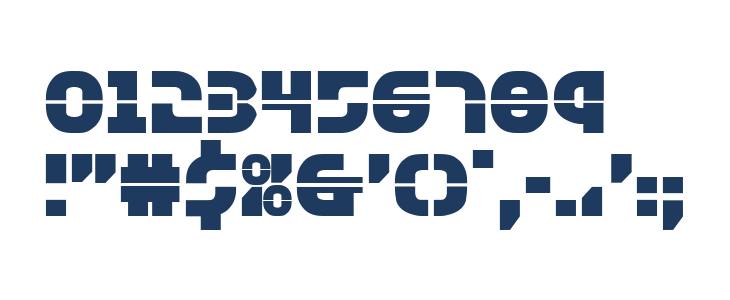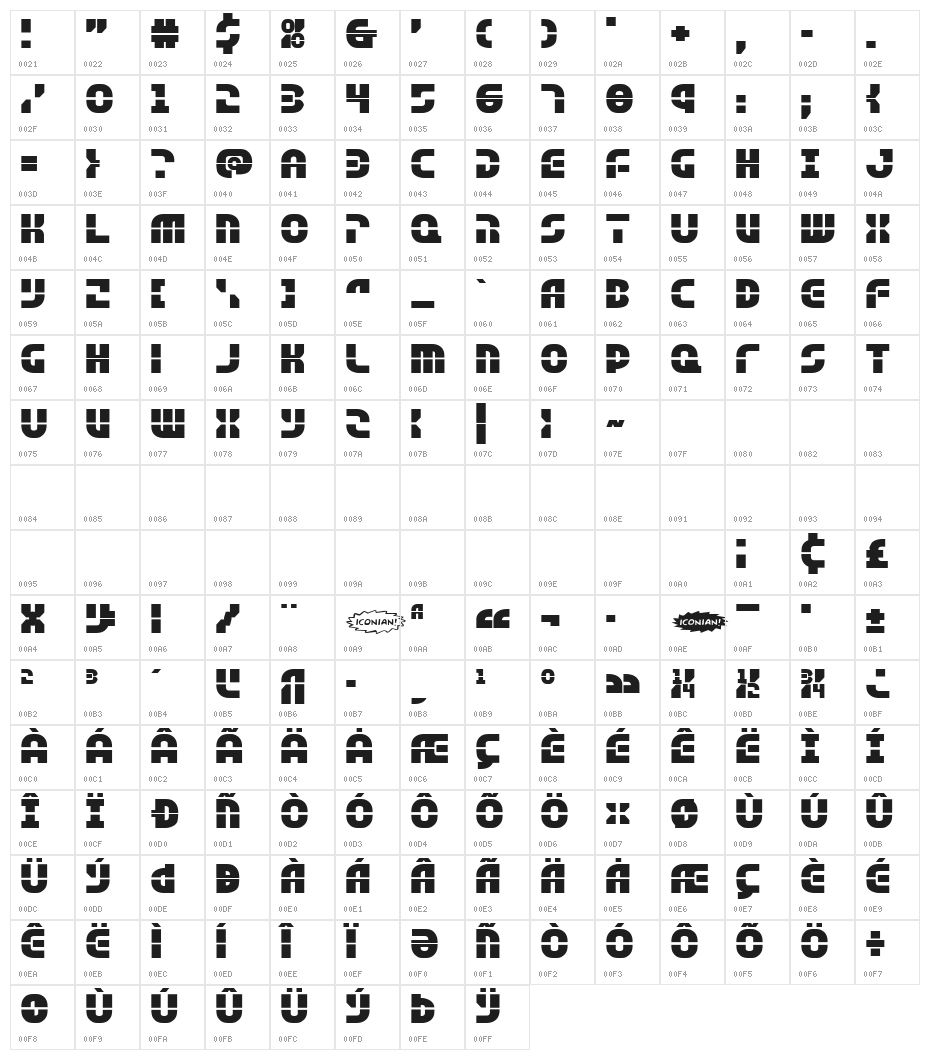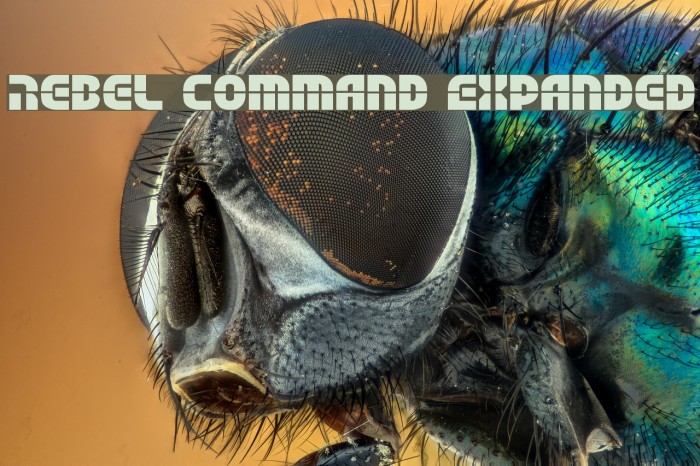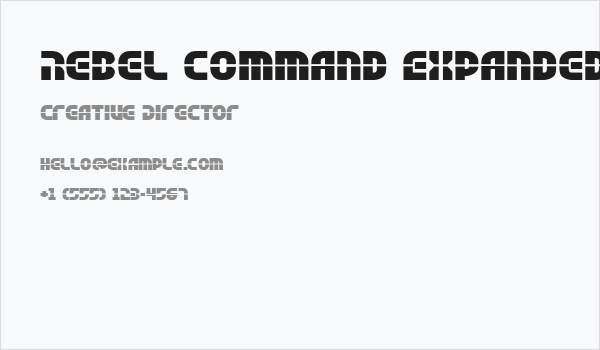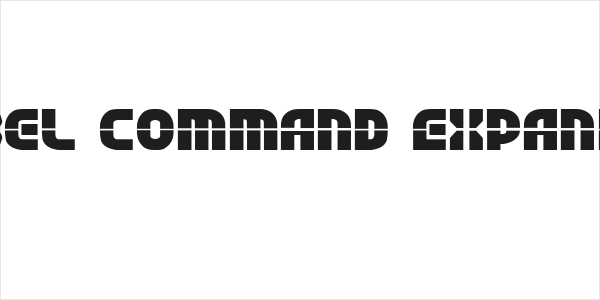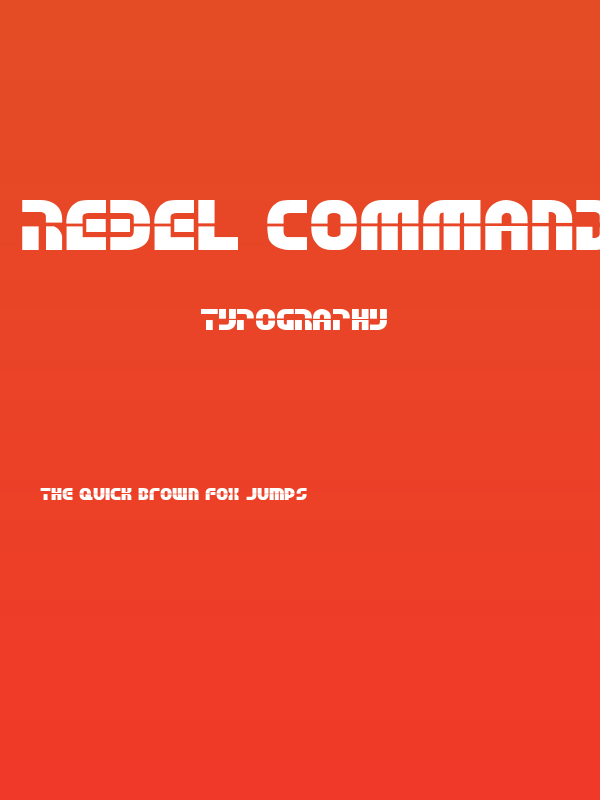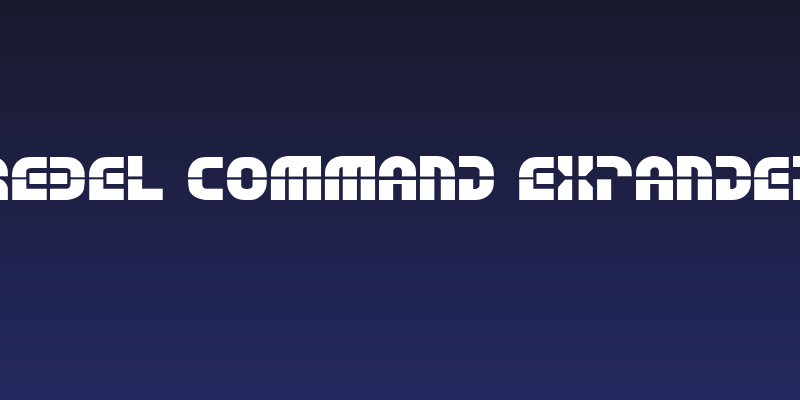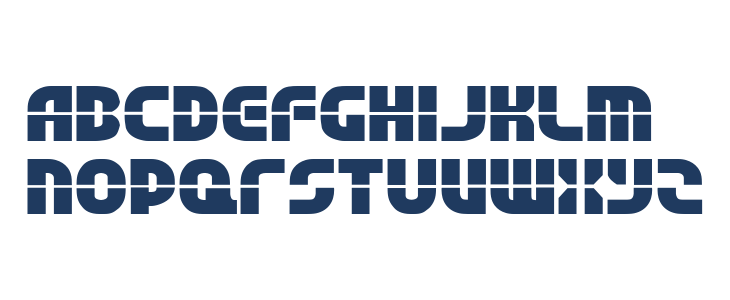
Rebel Command Expanded Font
Rebel Command Expanded Description
This font features a bold, futuristic design with a strong geometric influence. The characters are constructed with thick, block-like shapes, creating a sense of strength and modernity. The unique cut-out sections within each letter add an element of intrigue and complexity, making it stand out in any design. The uppercase and lowercase letters maintain a consistent style, with the numbers and special characters following suit. This font is ideal for projects that require a bold statement, such as branding, posters, or digital media.
| Proposed Projects | Ideal for branding, posters, digital media, and any project needing a bold, modern statement. |